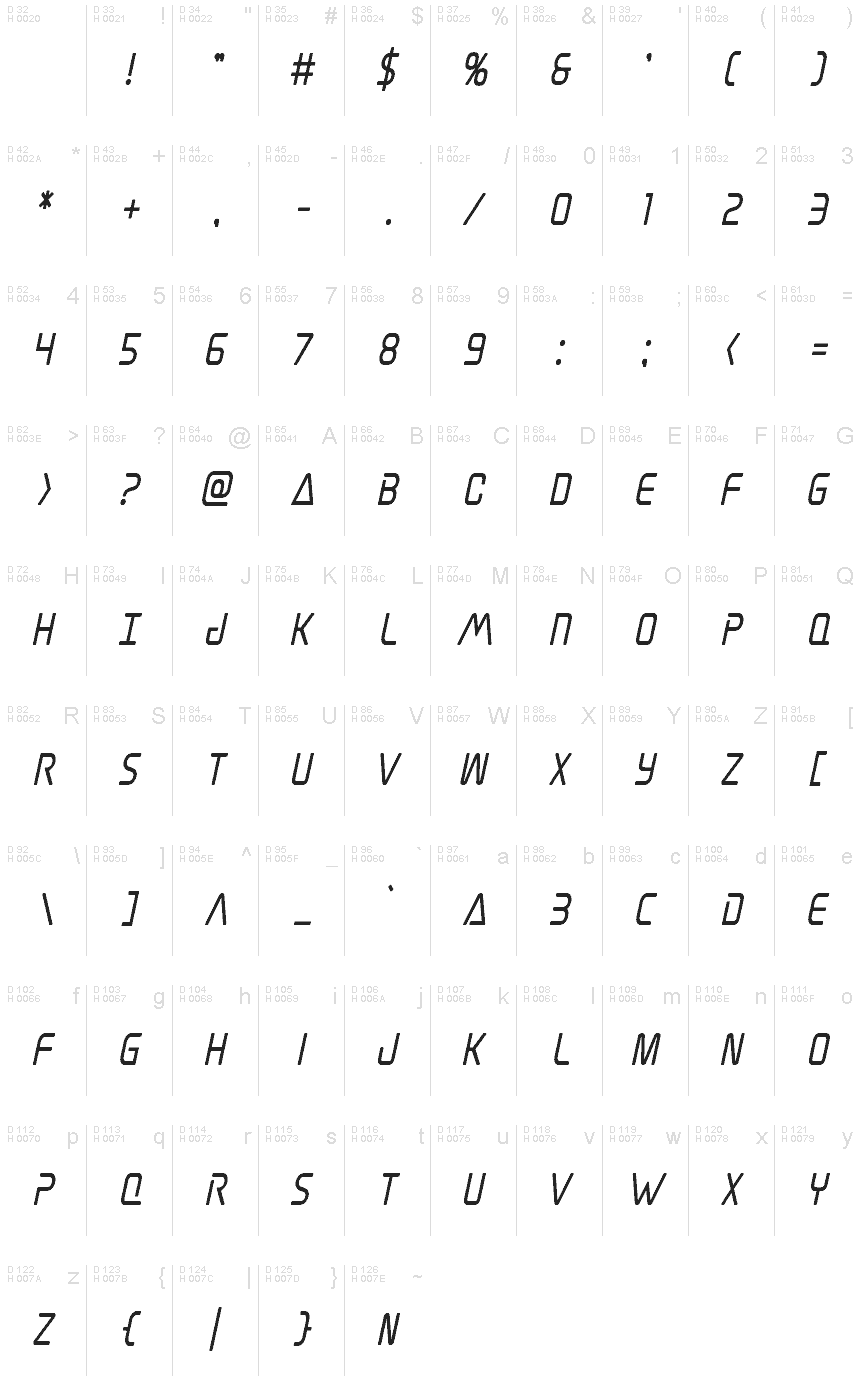
Elite Danger Bold Condens Ital
Elite Danger Bold Condens Italic font by Iconian Fonts is a free futuristic, sleek, and modern display font made to render text readable yet attractive. With its condensed width, geometric shapes, and angular curves, it allows you to achieve a technical vibe in your digital designs unlike any other font.
This font is particularly suitable for posters and banners that require big bold text. Its full potential also shows in headings for web pages or print copies such as book covers and magazines where the title needs to pop. All kinds of branding designs whether related to technology or not will be aesthetically enhanced using this typeface in their logos or packages.